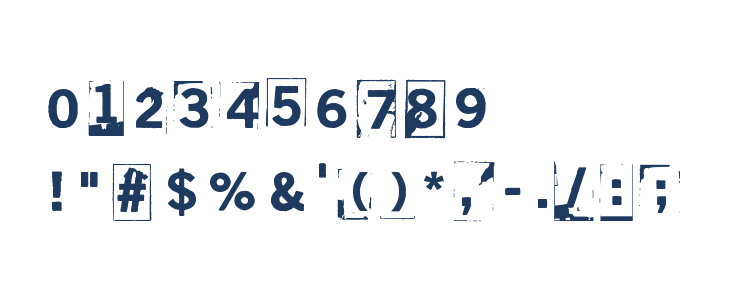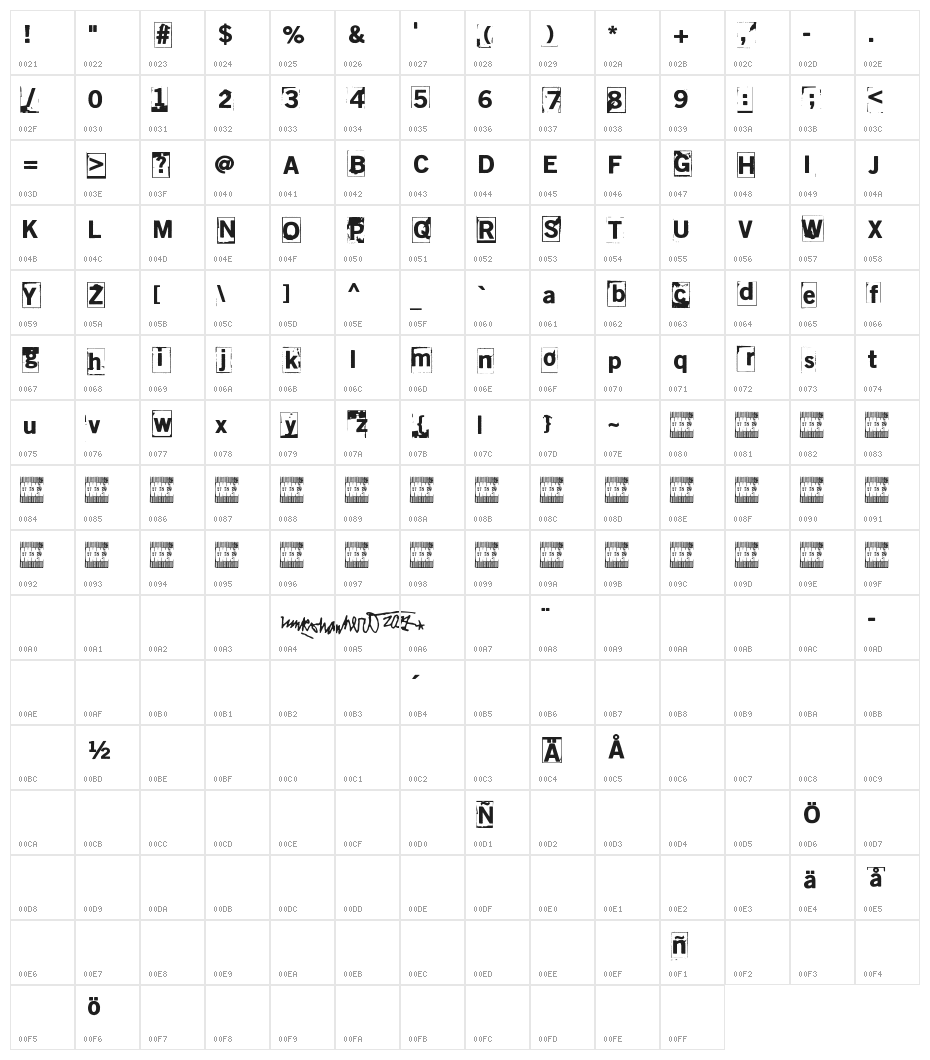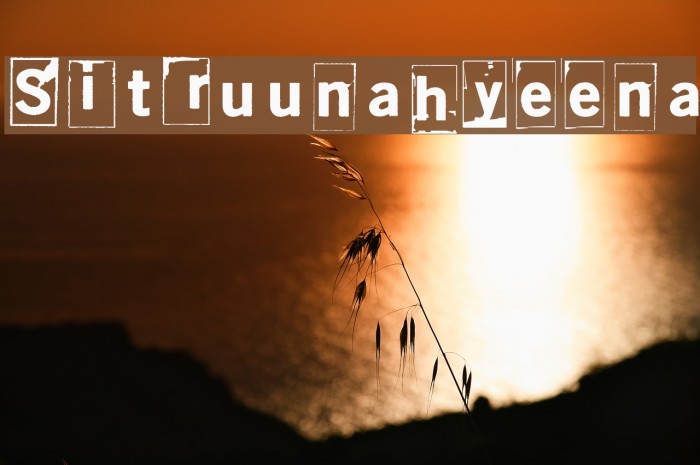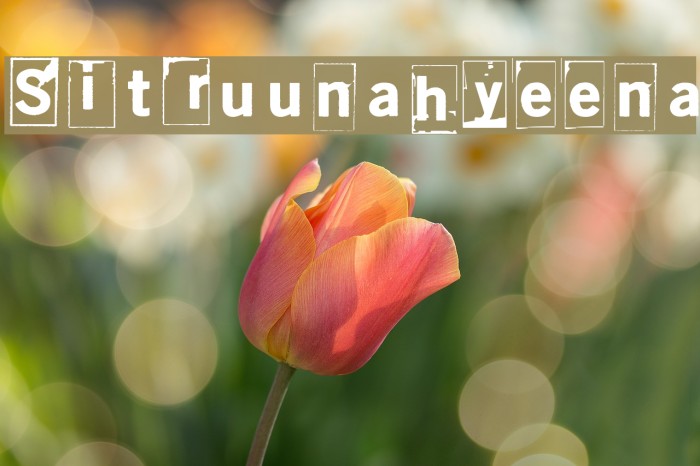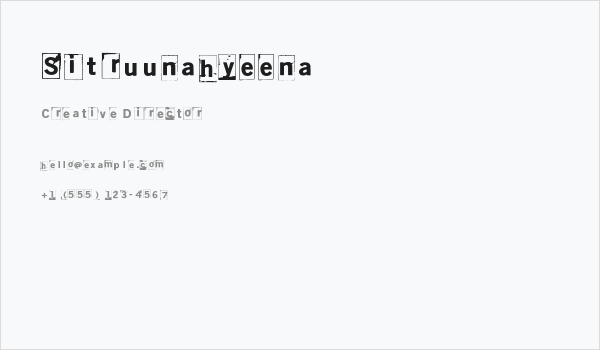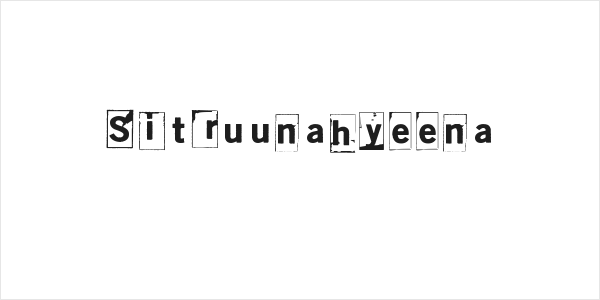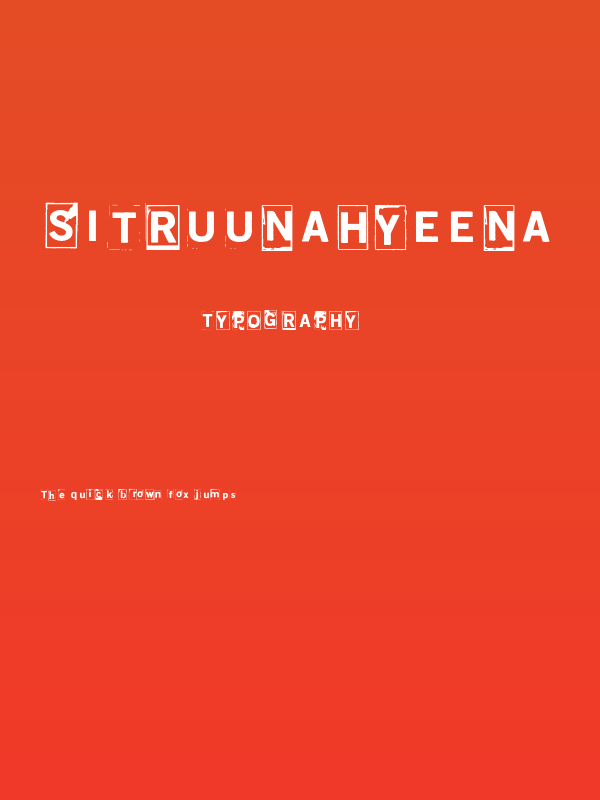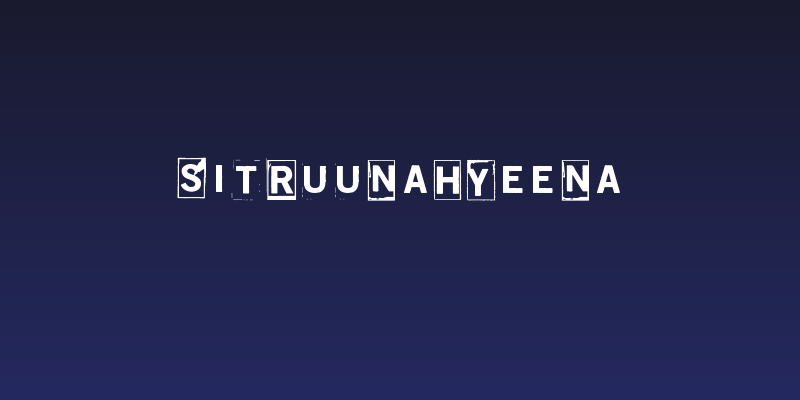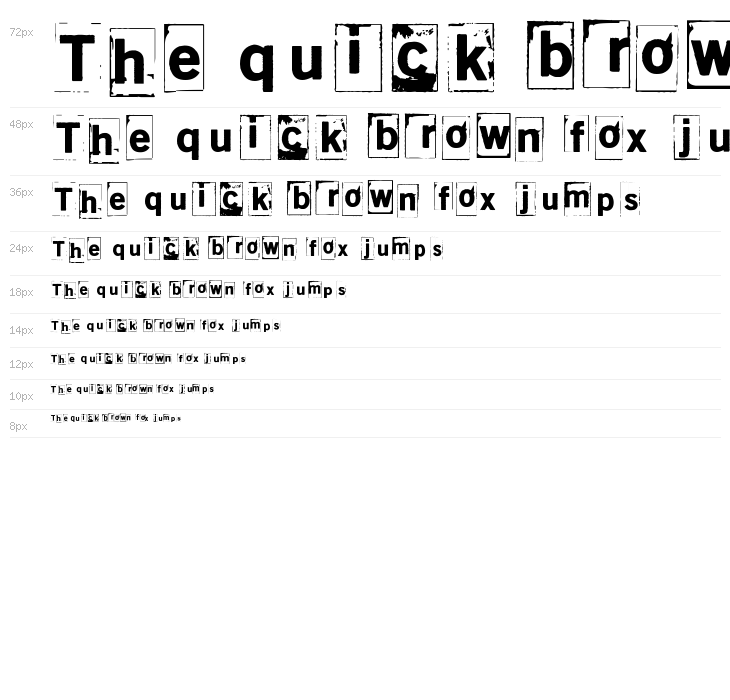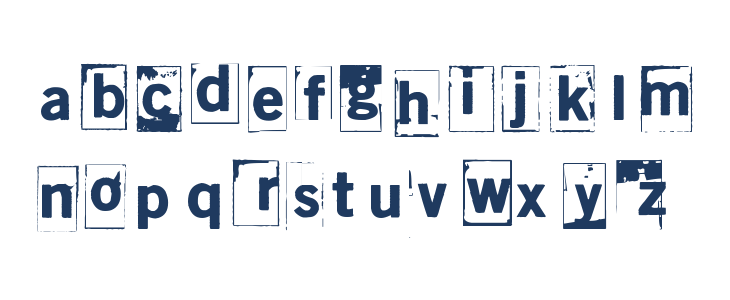
Sitruunahyeena Font
Sitruunahyeena Description
This font features a distressed, grunge style with a bold and impactful appearance. Each character is enclosed in a rough, uneven box, giving it a unique, stamped look. The letters and numbers have a worn texture, adding to the vintage and rugged aesthetic. The uppercase and lowercase letters maintain a consistent style, with slight variations in texture and box shape. The special characters follow the same design, ensuring a cohesive look across all elements. This font is ideal for projects that require a bold, eye-catching design with a touch of edginess.
| Overall Style | Vintage, Grunge |
| Proposed Projects | Ideal for posters, album covers, branding, and any design needing a rugged, vintage feel. |